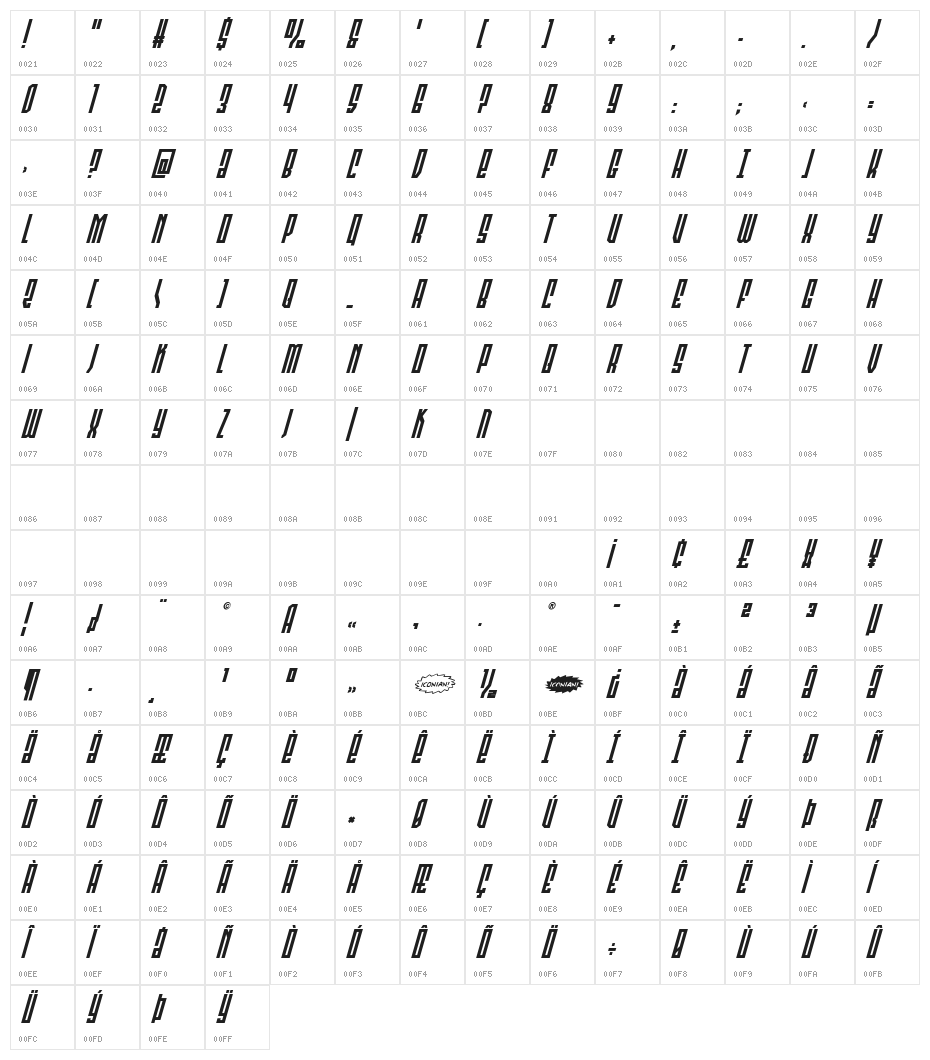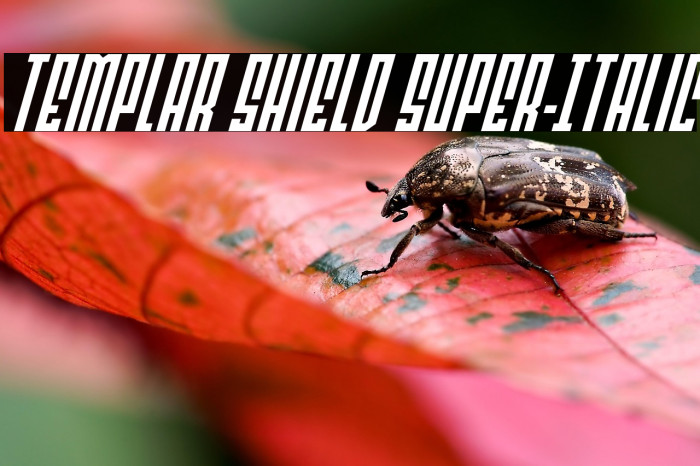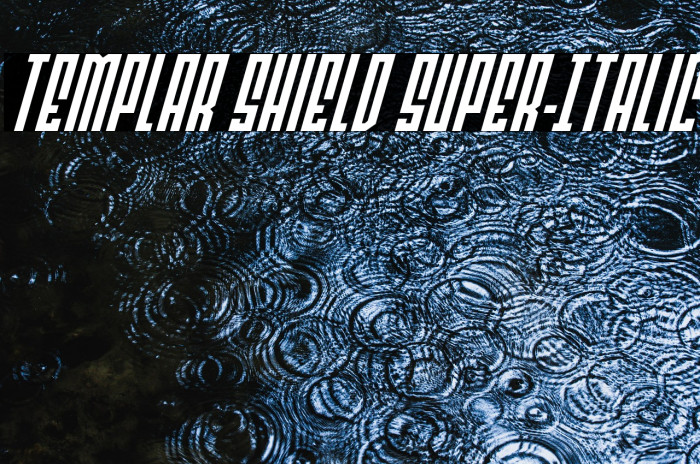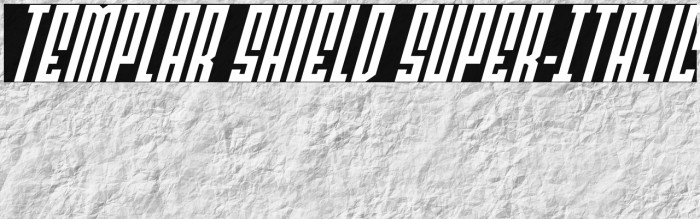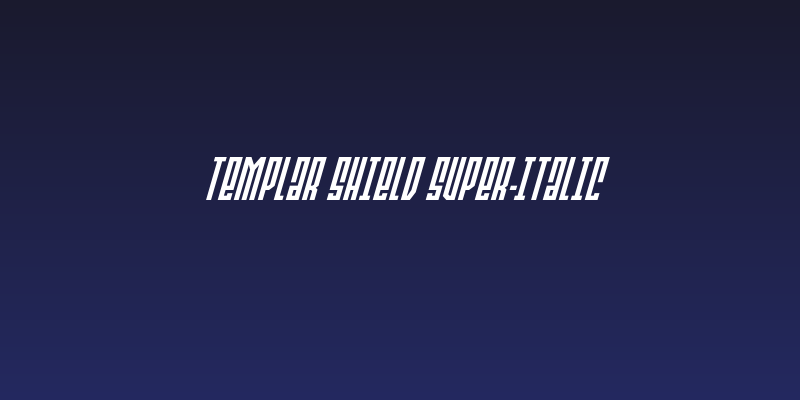
Templar Shield Super-Italic Font
Templar Shield Super-Italic Description
This font features a bold and dynamic design with a strong italic slant, giving it a sense of motion and energy. The characters are tall and narrow, with sharp angles and a futuristic aesthetic. The uppercase and lowercase letters maintain a consistent style, emphasizing verticality and sleekness. Numbers and special characters are designed to match the overall angular and modern look, making the font suitable for impactful and eye-catching designs.
| Proposed Projects | Ideal for sports branding, action movie posters, video game titles, and dynamic logo designs. |